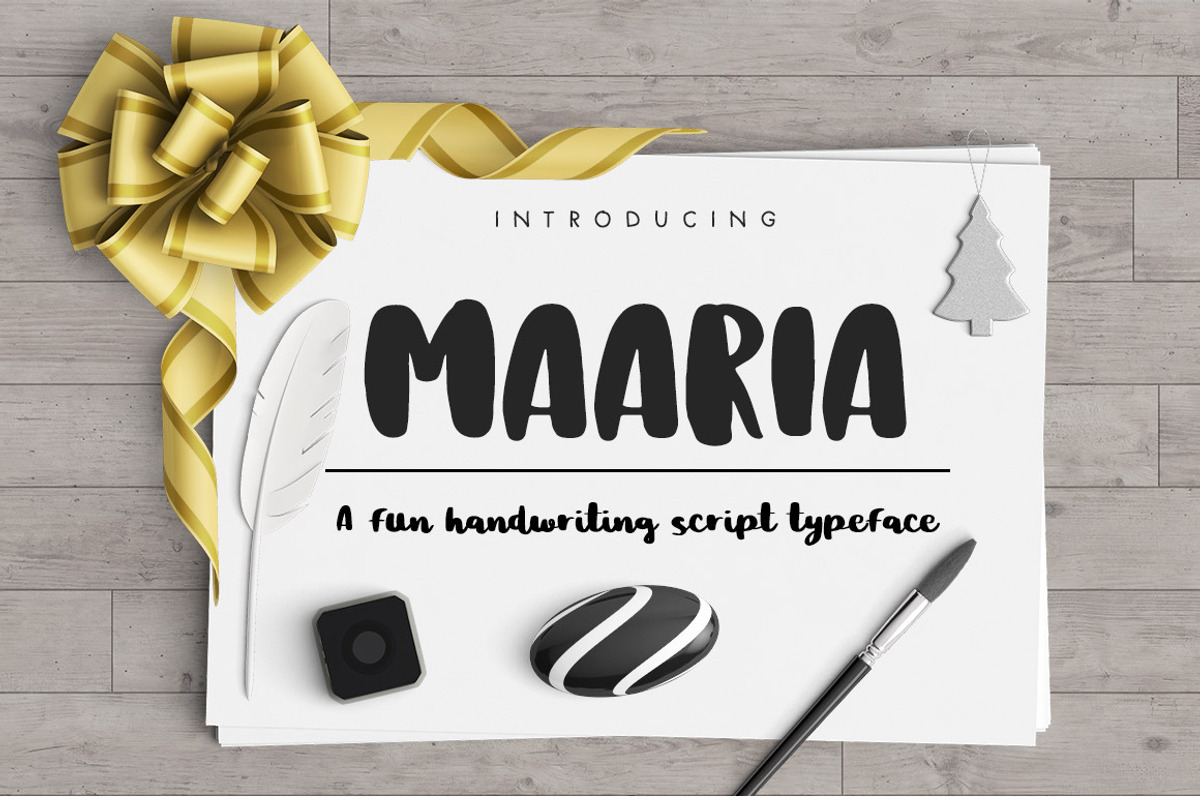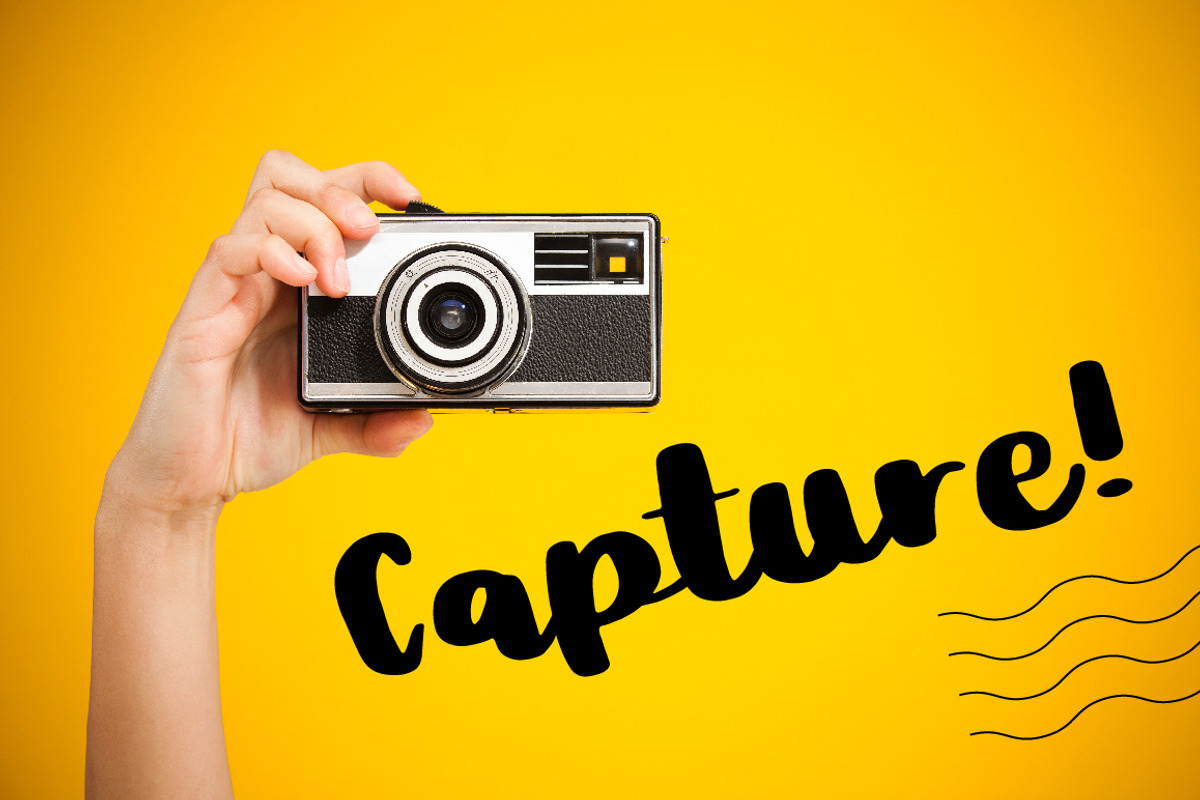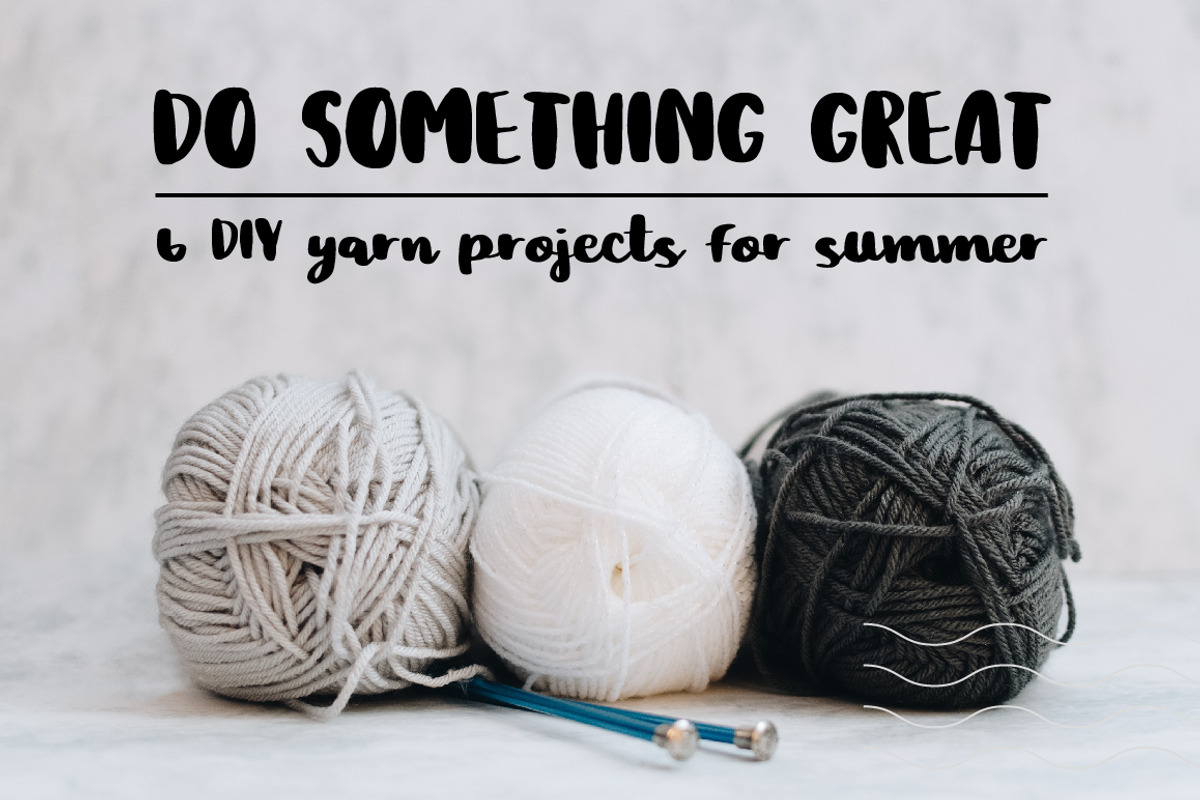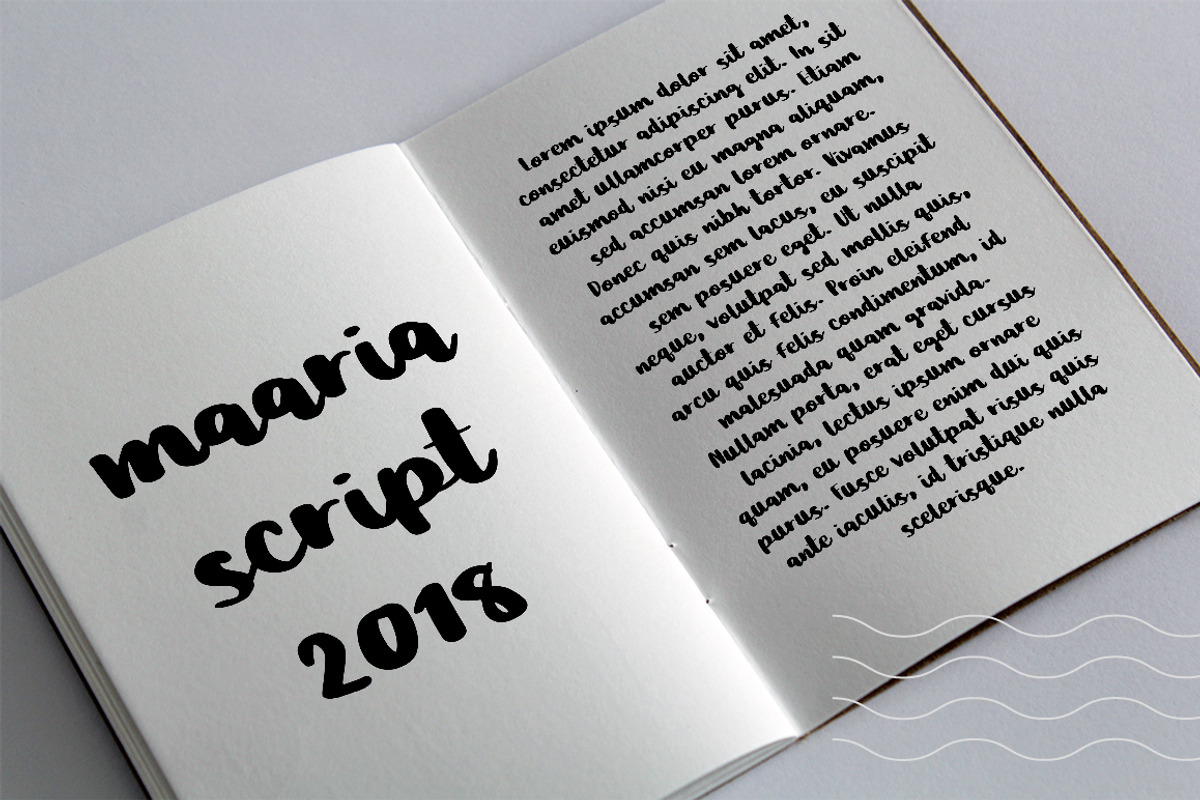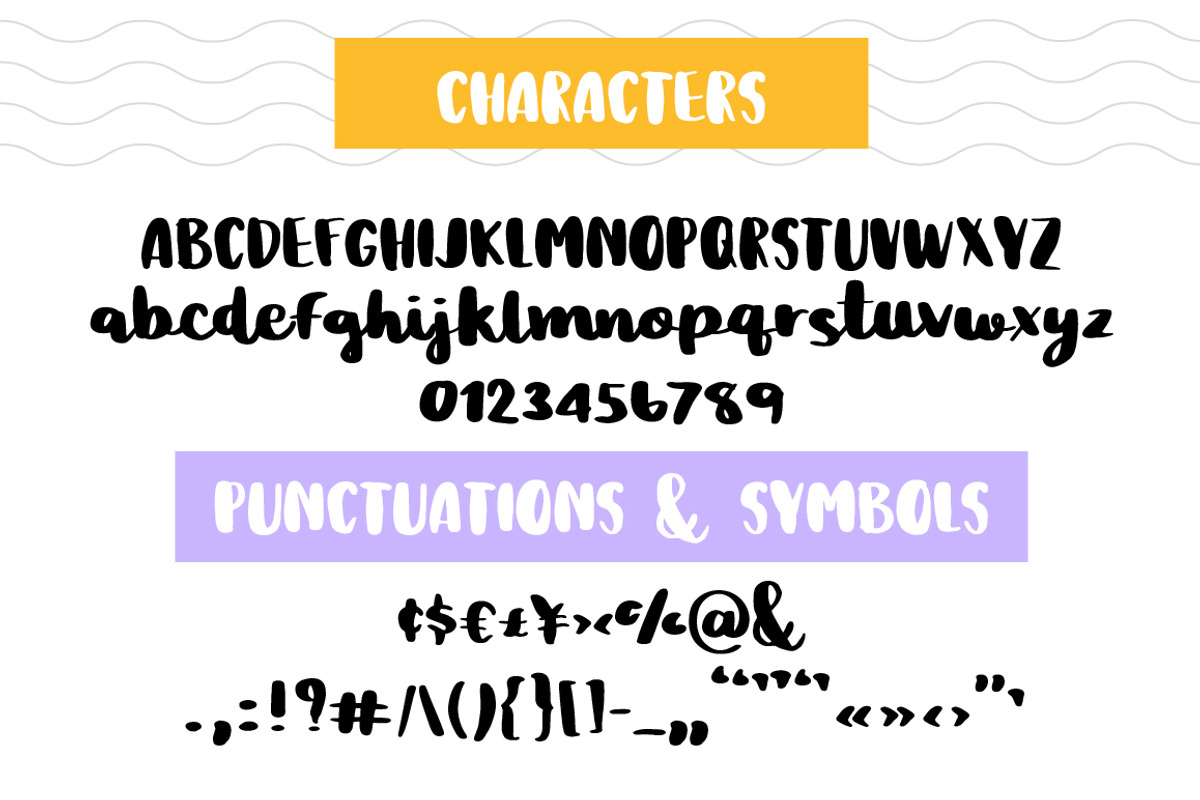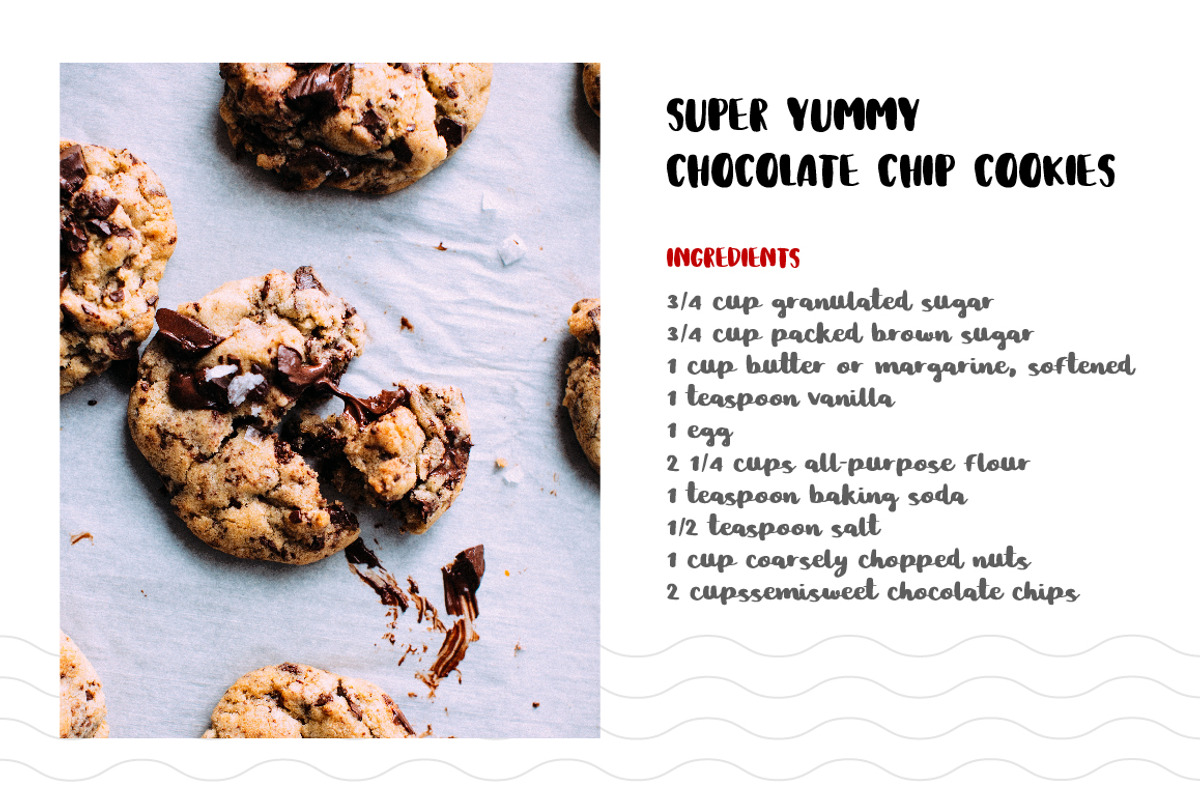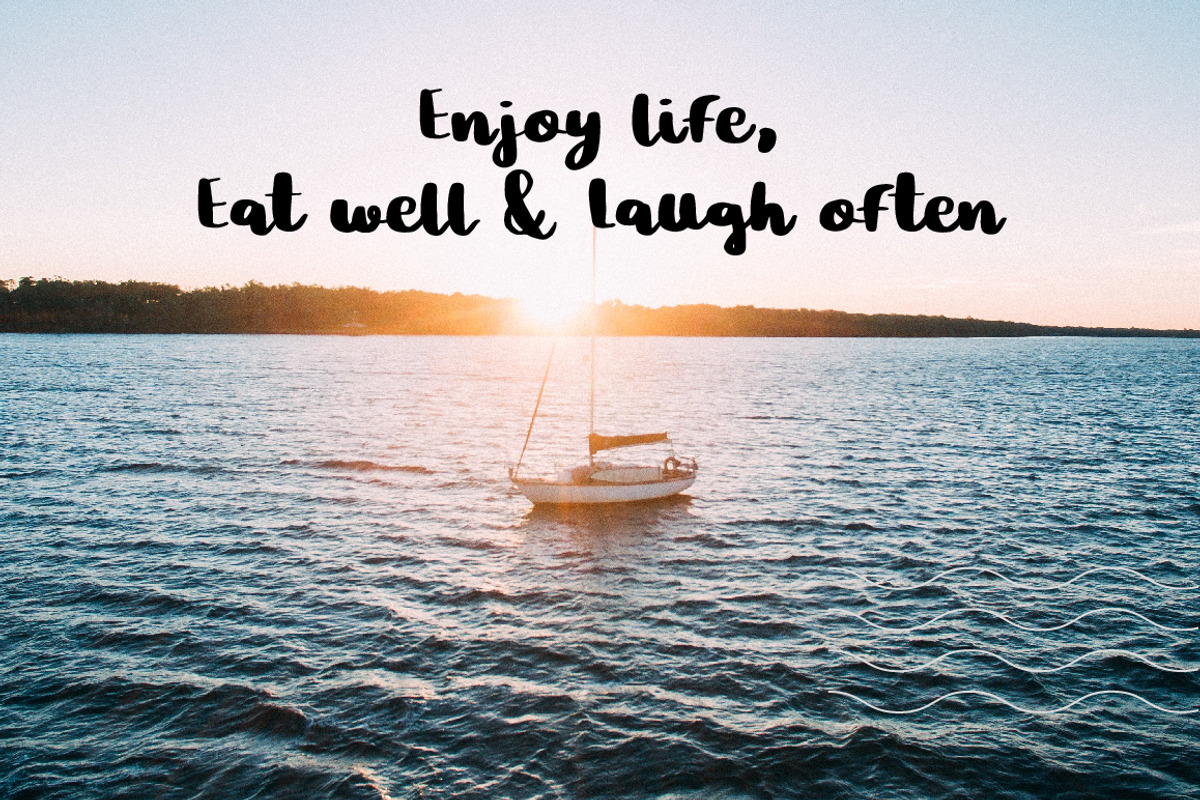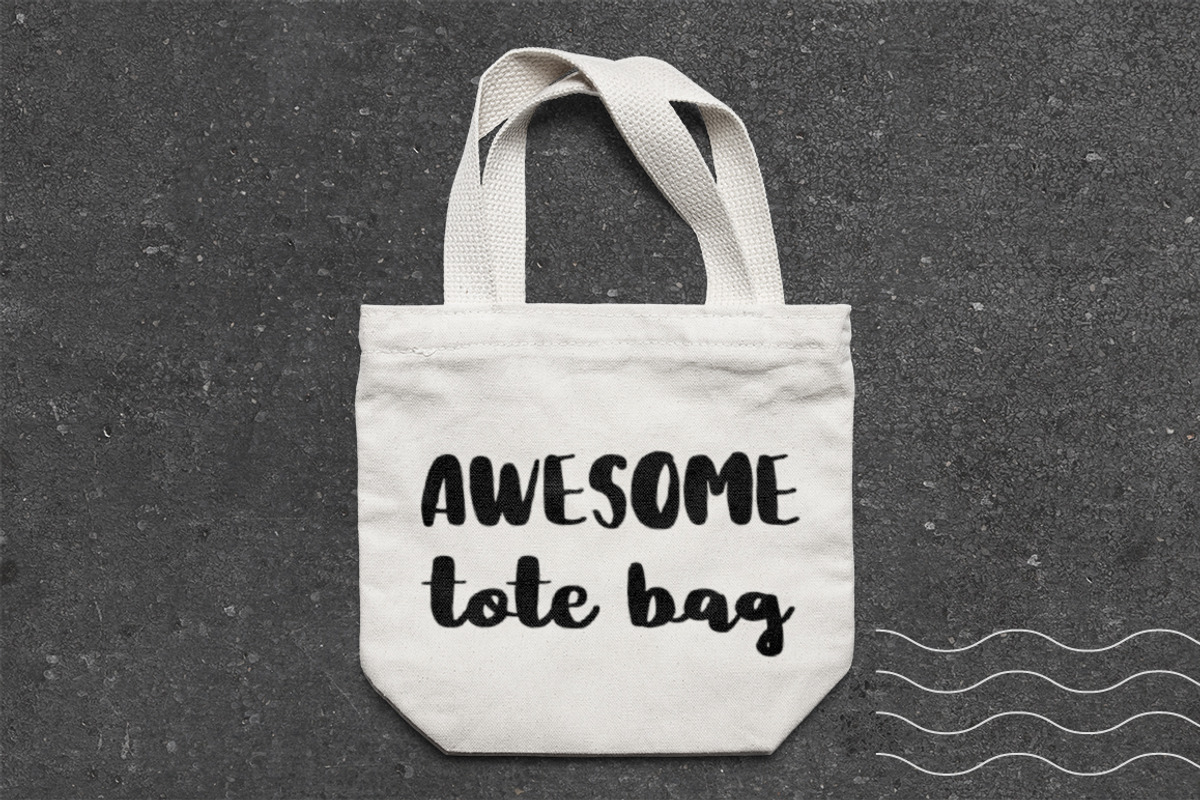
Maaria Handwriting Script Typeface
I would like to introduce Maaria Script, the handwriting script typeface
Maaria Script is a fun handwriting script typeface with thick and thin stoke, giving off a fun, informal and teenage vibe. It can be used as a cute minimal-style header display or as a stylish text for craft, DIY or kids related project.